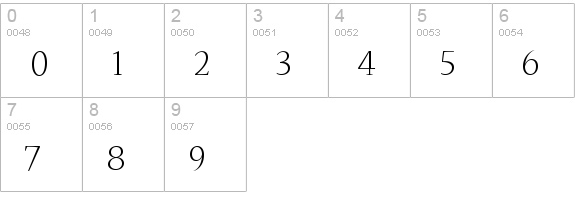
Nueva Std Light is a refined, elegant variant in the Nueva typeface family \xE2\x80\x94 well suited to elegant body text, refined sub-headings, and luxury branding.
Nueva Std Light is a modern and elegant typeface that exudes sophistication and versatility. With its clean lines and subtle curves, this font is perfect for a wide range of design projects, from branding to editorial layouts. The light weight of Nueva Std adds a touch of delicacy and refinement to any text, making it ideal for creating a polished and professional look. Best of all, Nueva Std Light is available for free download at FontsMarket.com. This means you can easily access this beautiful font and use it in your projects without any additional cost. Whether you're working on a personal project or a client's design, Nueva Std Light is a fantastic choice that will elevate your work to the next level. Don't miss out on this opportunity to enhance your designs with this stunning typeface. Download Nueva Std Light today and see the difference it can make in your creative endeavors.